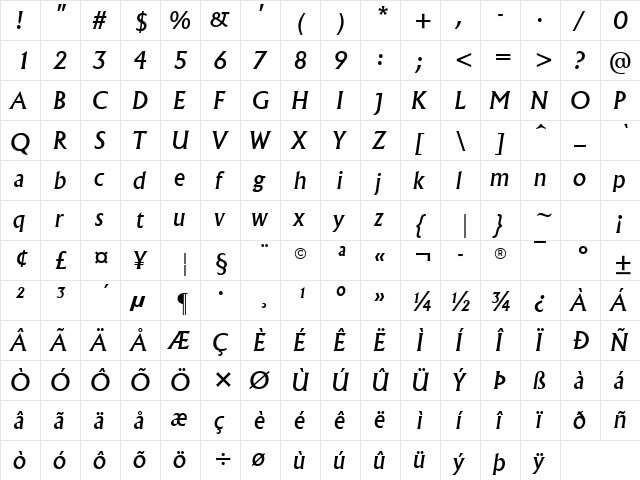
Albertus Medium Italic
Design Context for Albertus Medium Typeface
Albertus Medium is a composed and adaptable typeface that performs quietly and consistently across a wide range of design contexts. The dynamic lean of this cut emphasises speed and emphasis in any layout.
Pro Tip: Try Albertus Medium for annotation and caption copy alongside an upright companion — the contrast in angle creates a dynamic but ordered typographic system.